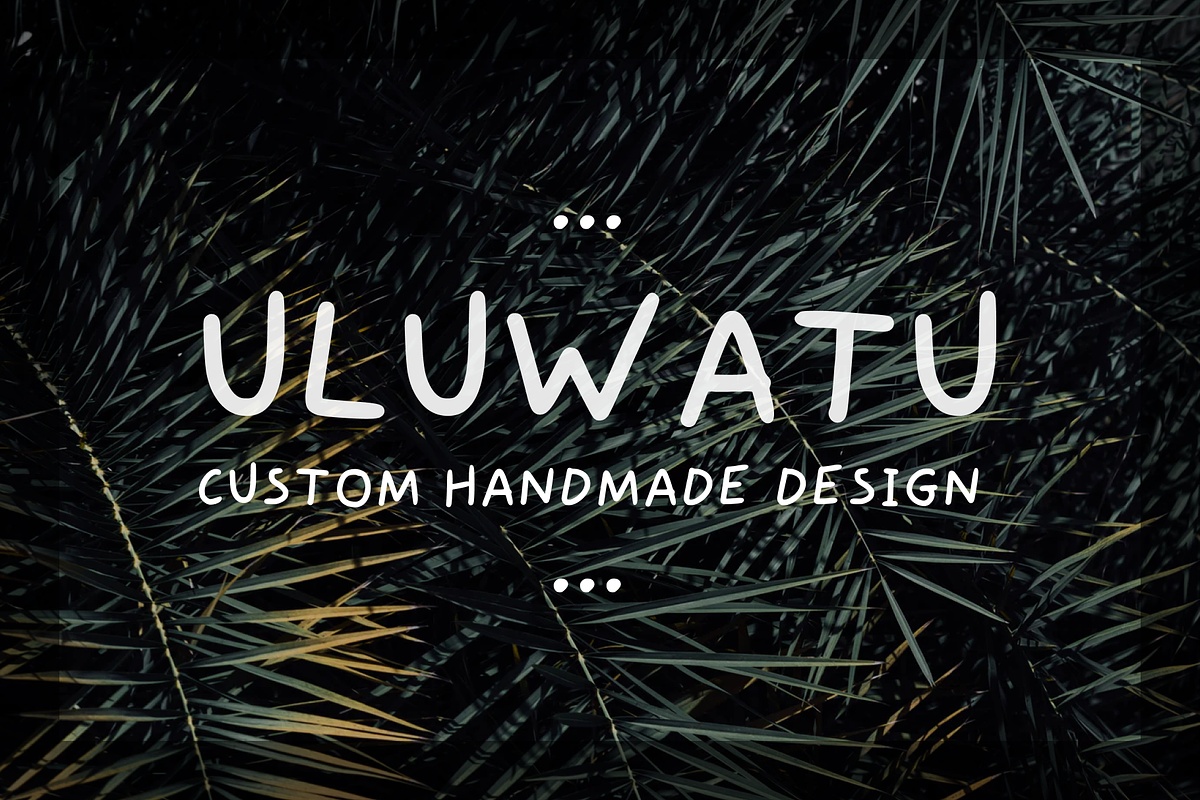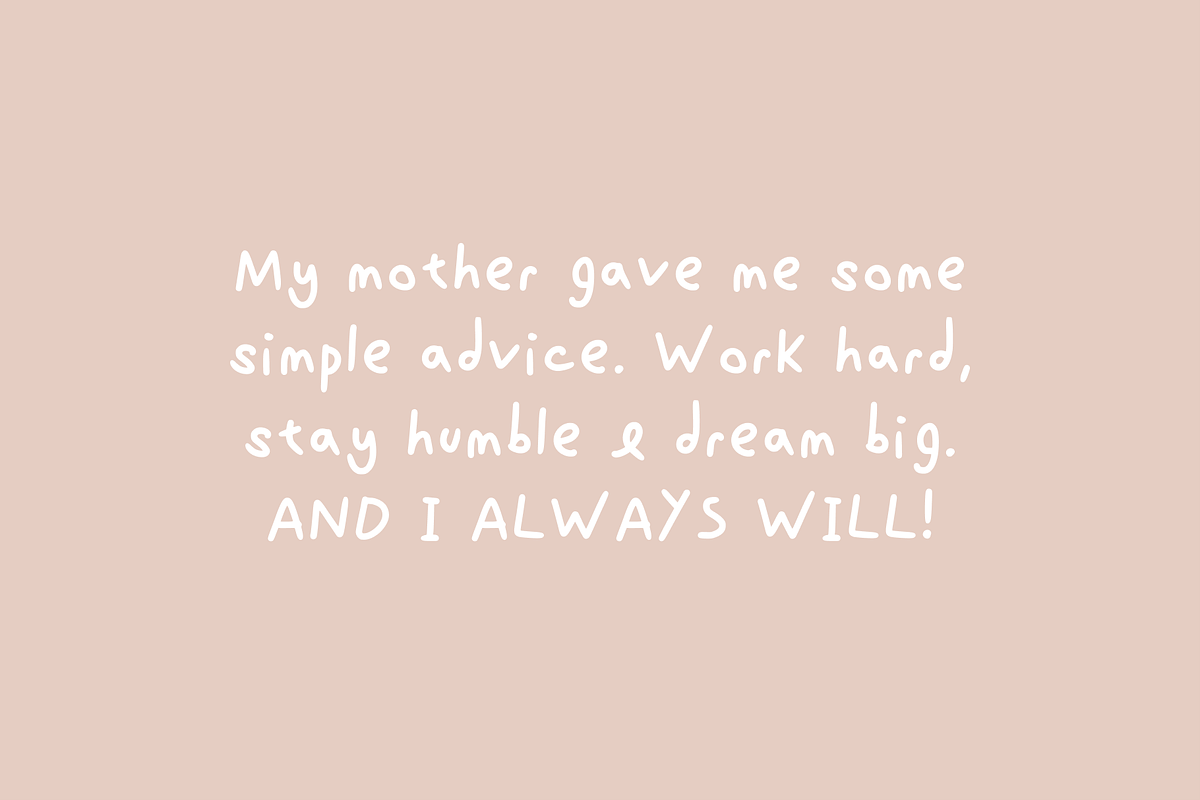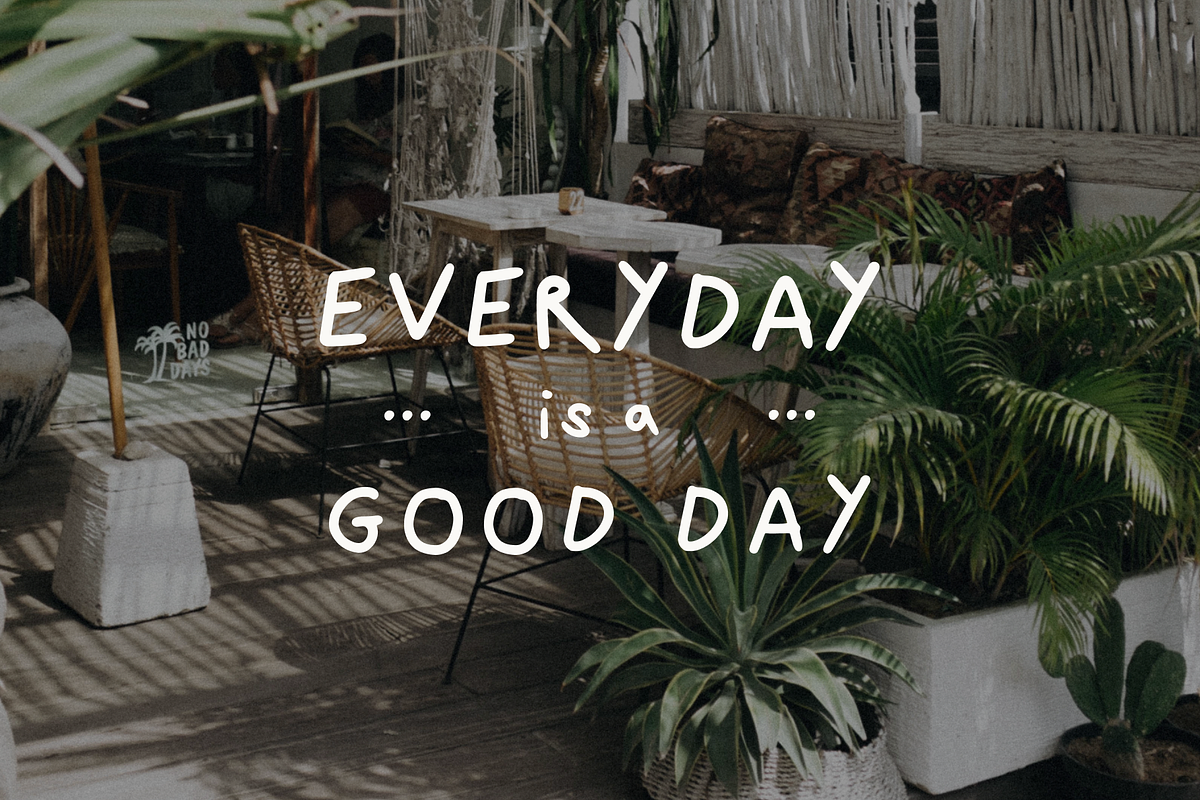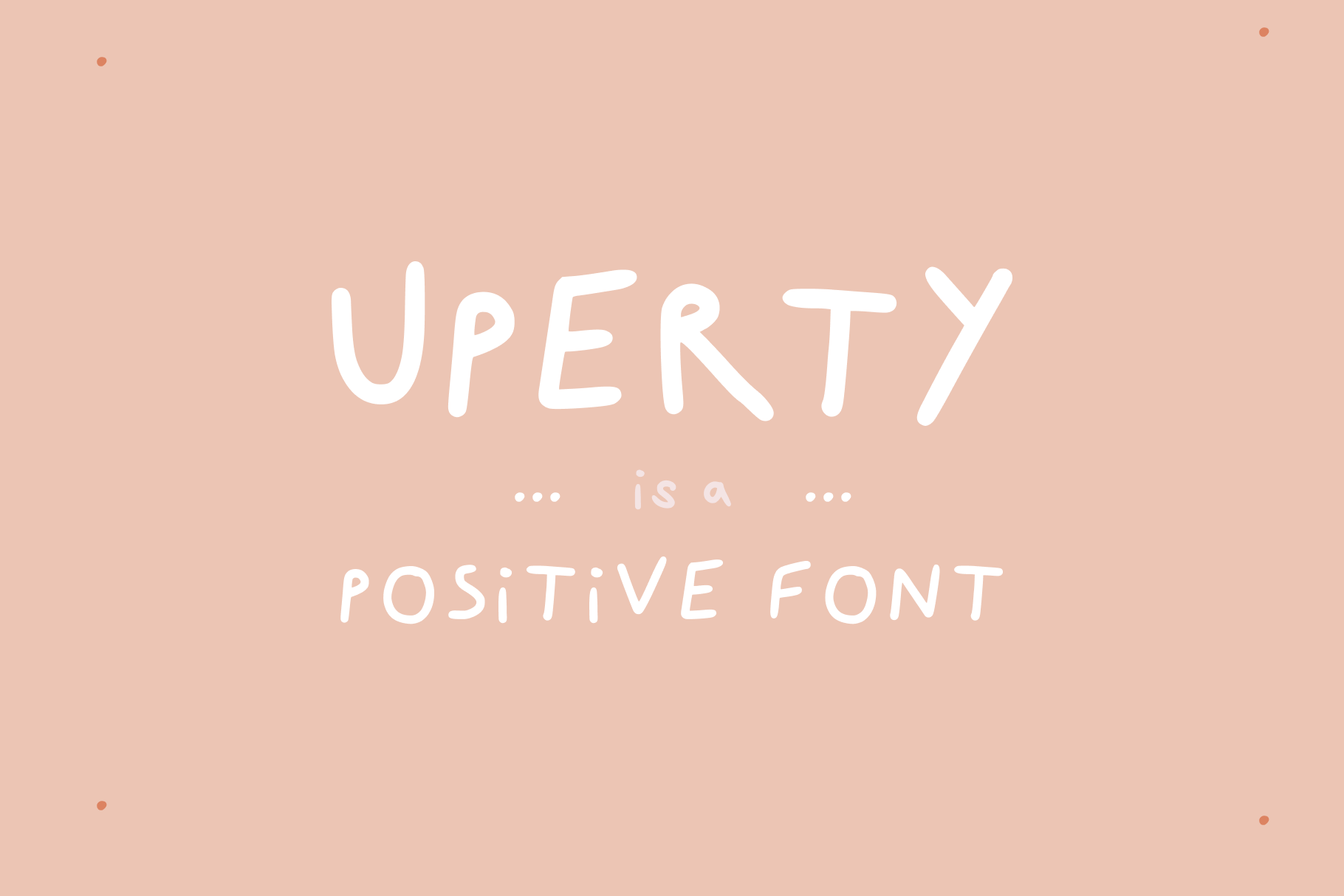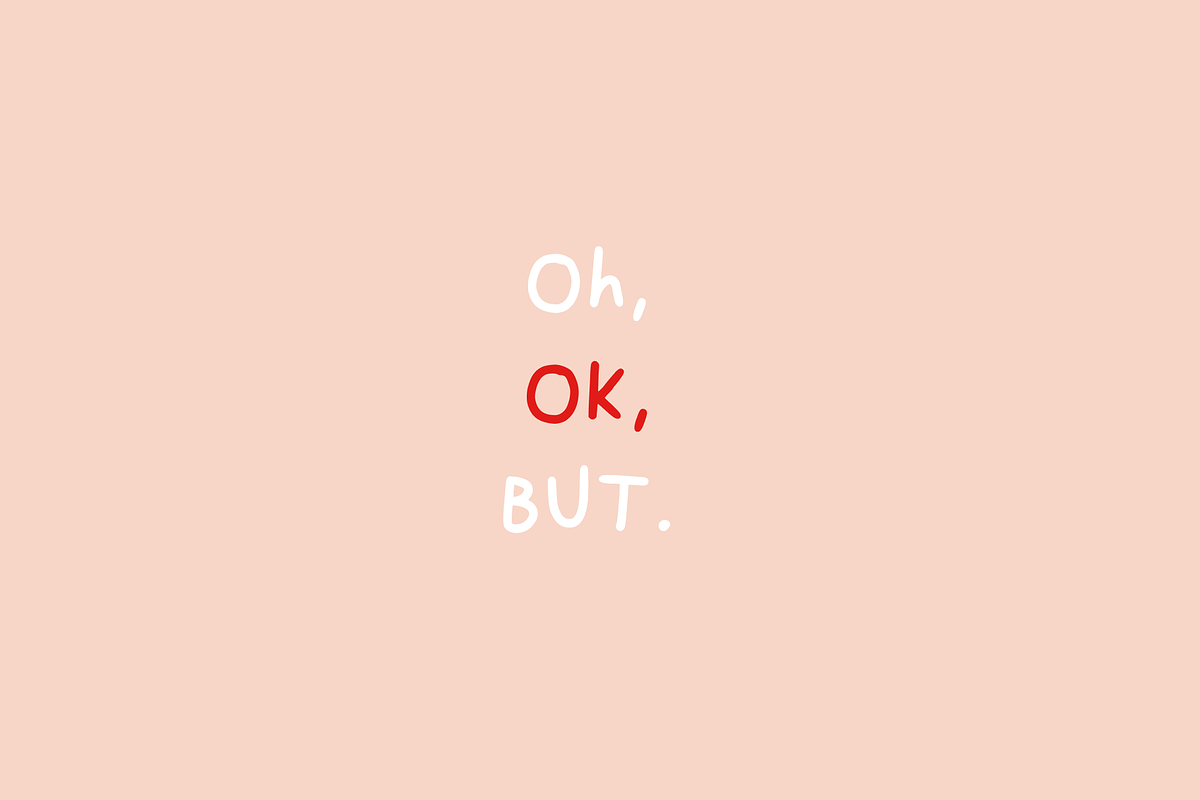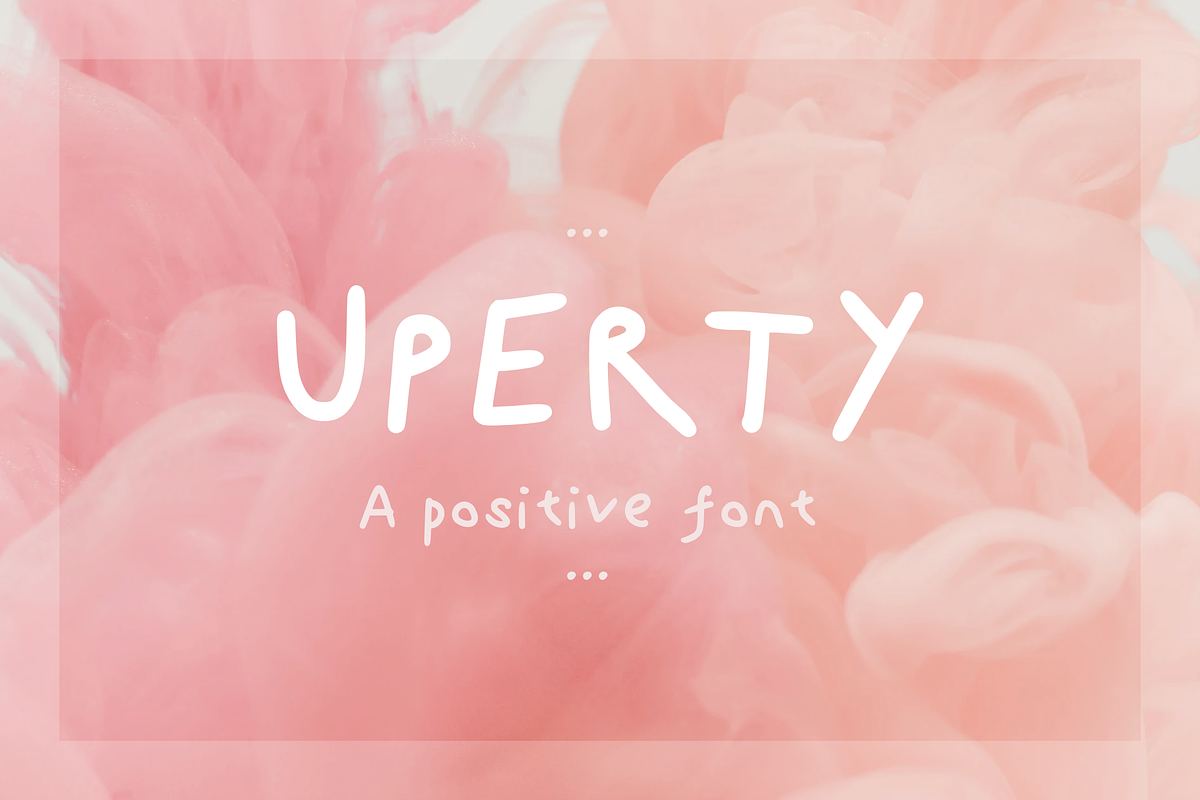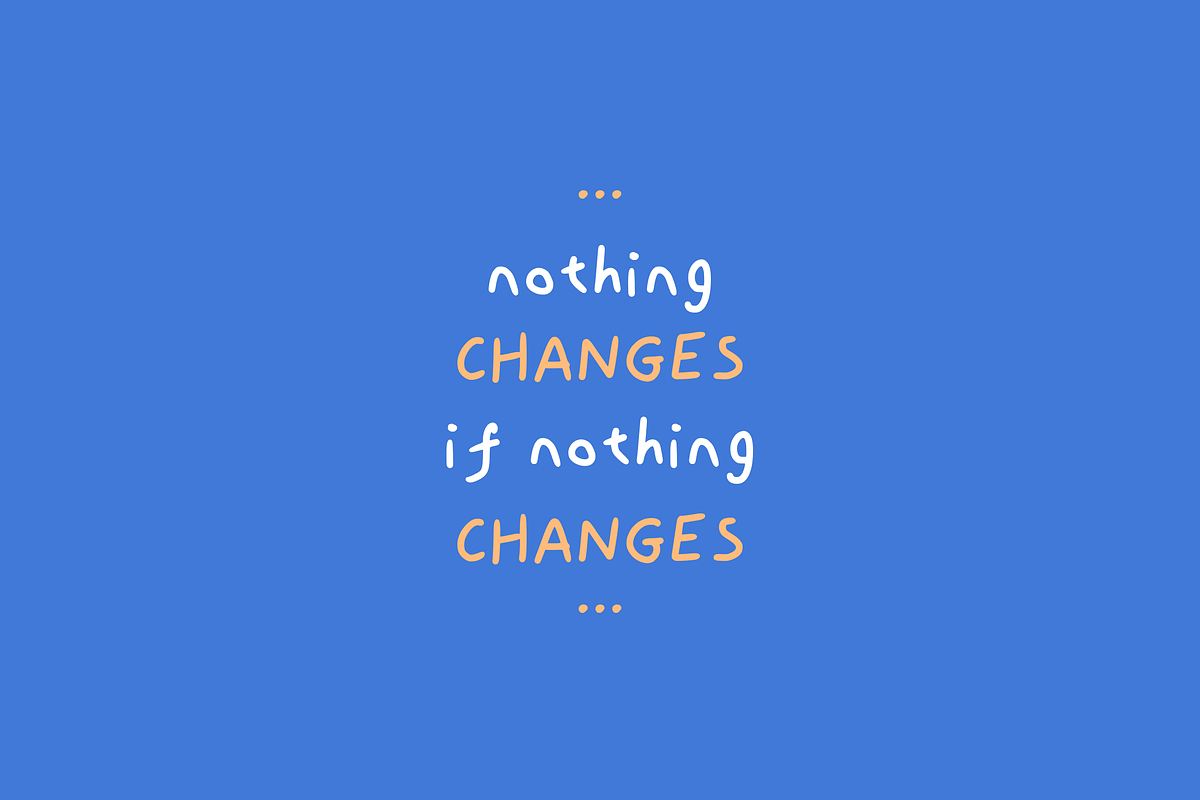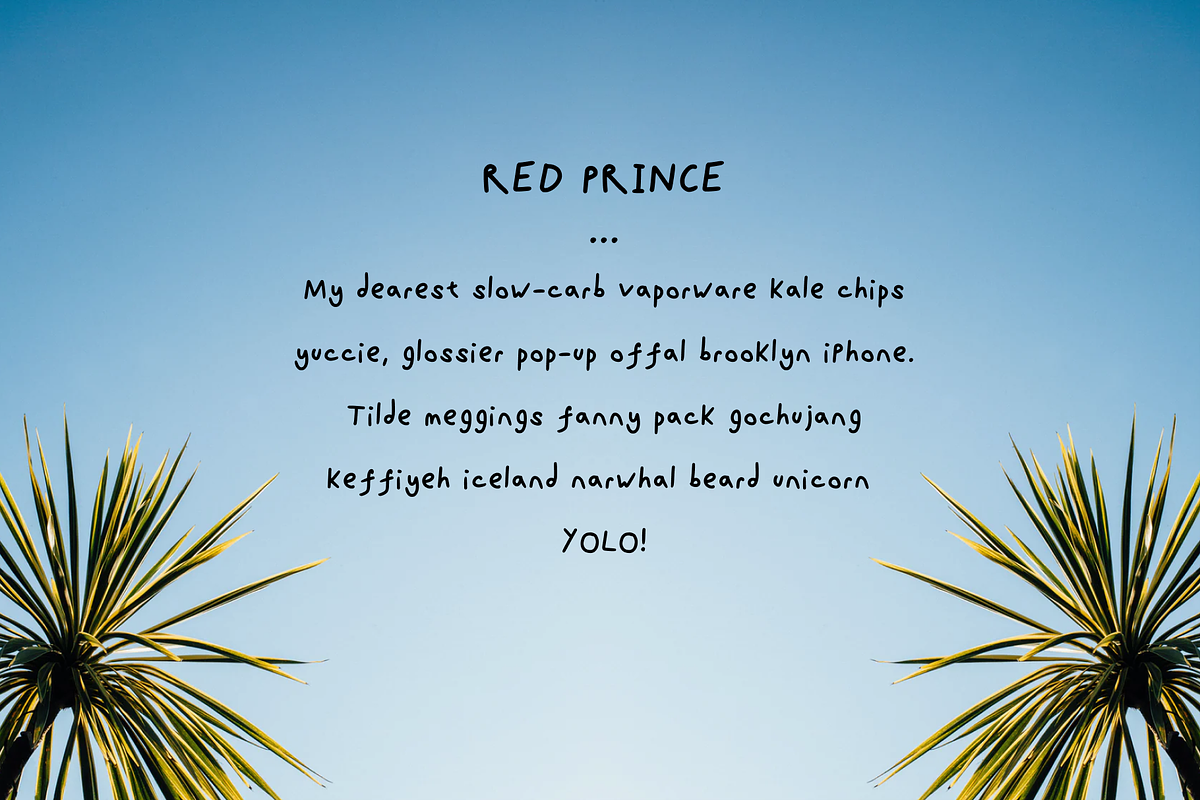
Uperty: Simple Boho Handwritten Font
Uperty is a handwritten font full of positivity and character. A friendly hand-lettered typeface with charm and style!
Perfect for
- Quotes
- Headings
- Logos
- Branding
- Merchandise
- Websites
Uperty is a versatile font for various branding looks including.
- Friendly
- Relaxed
- Trendy
- Modern
- Boho
- Fun
- Chic
- Children's
- Organic
- Natural
- Human
- Food